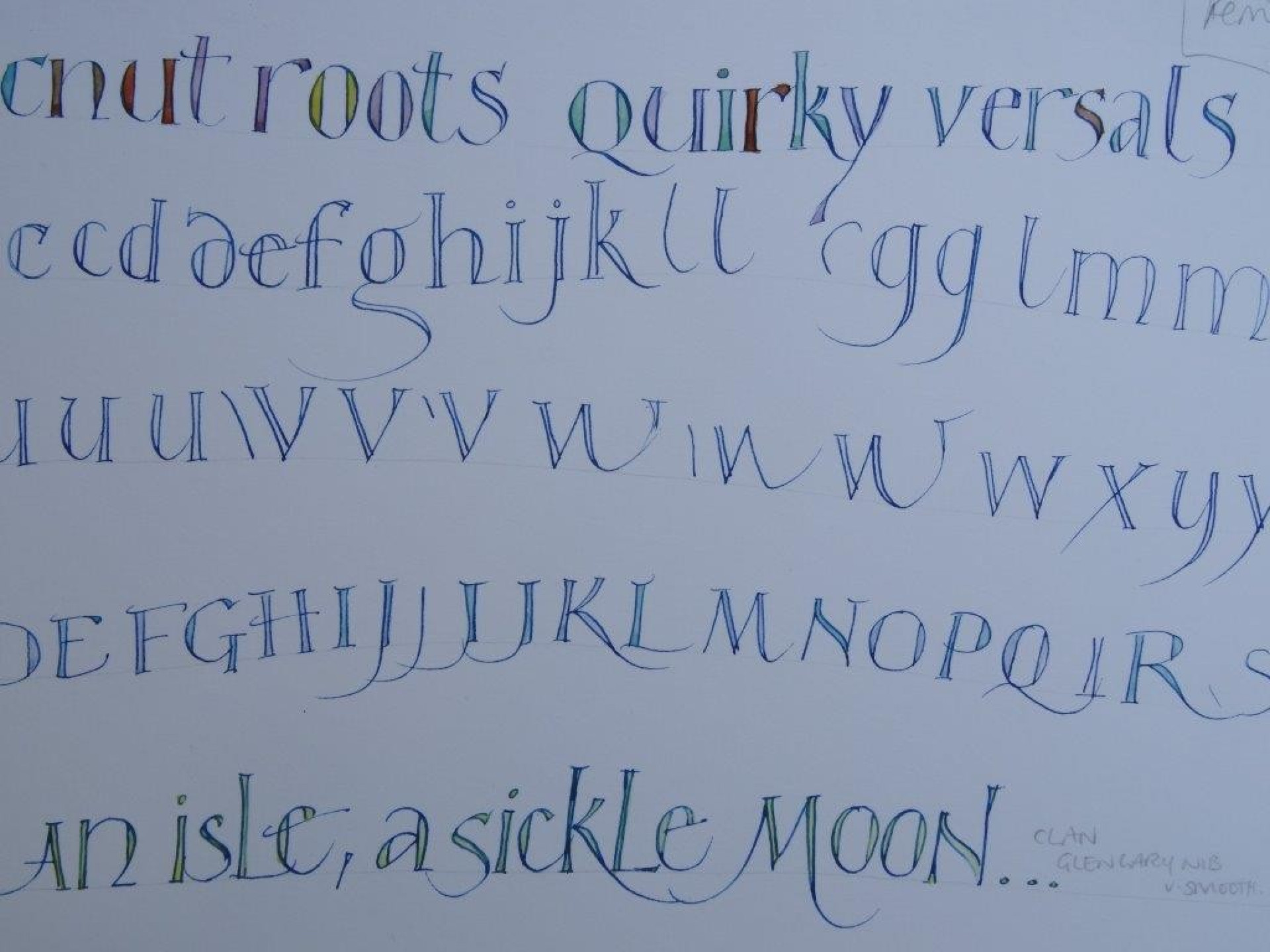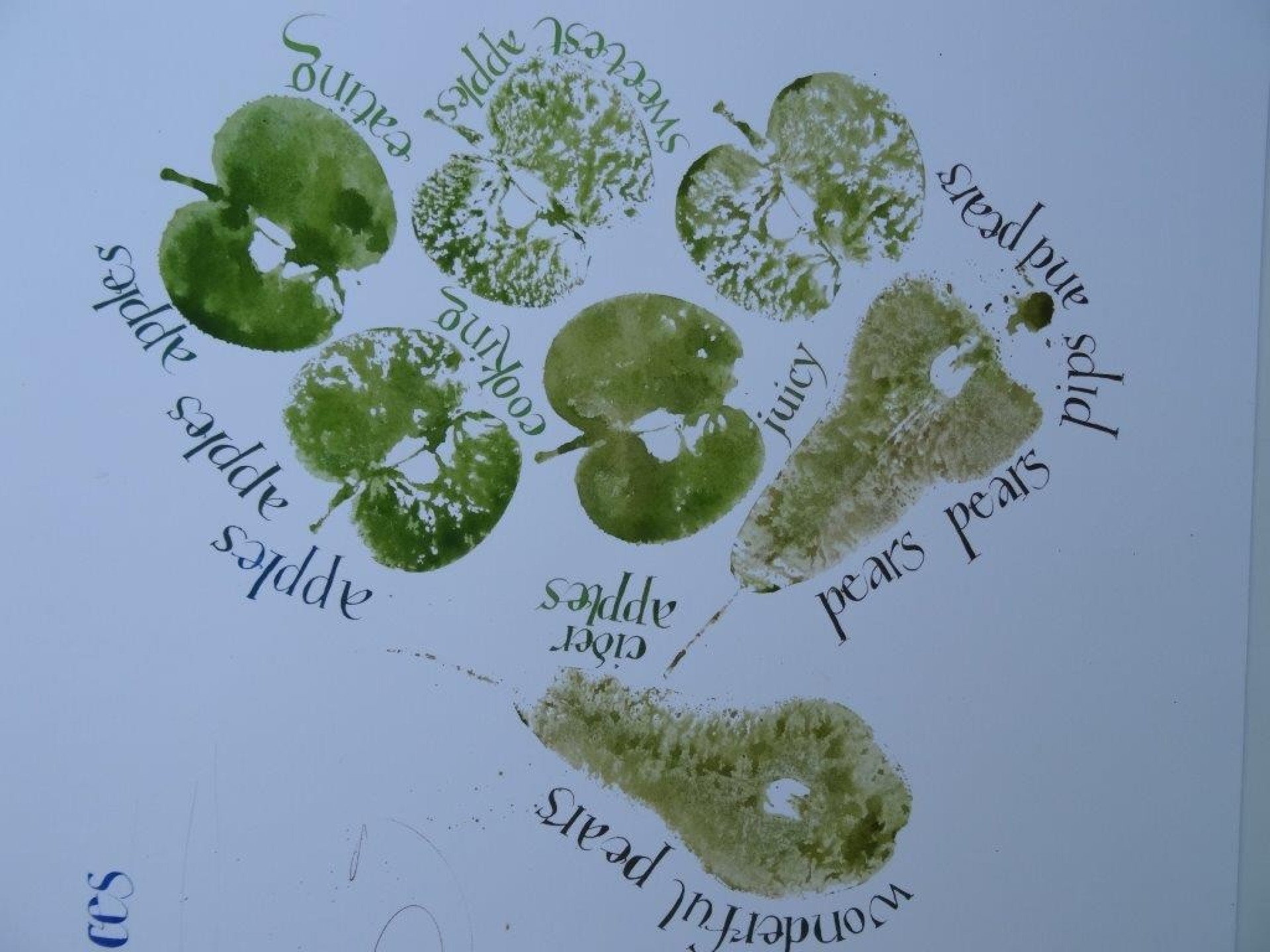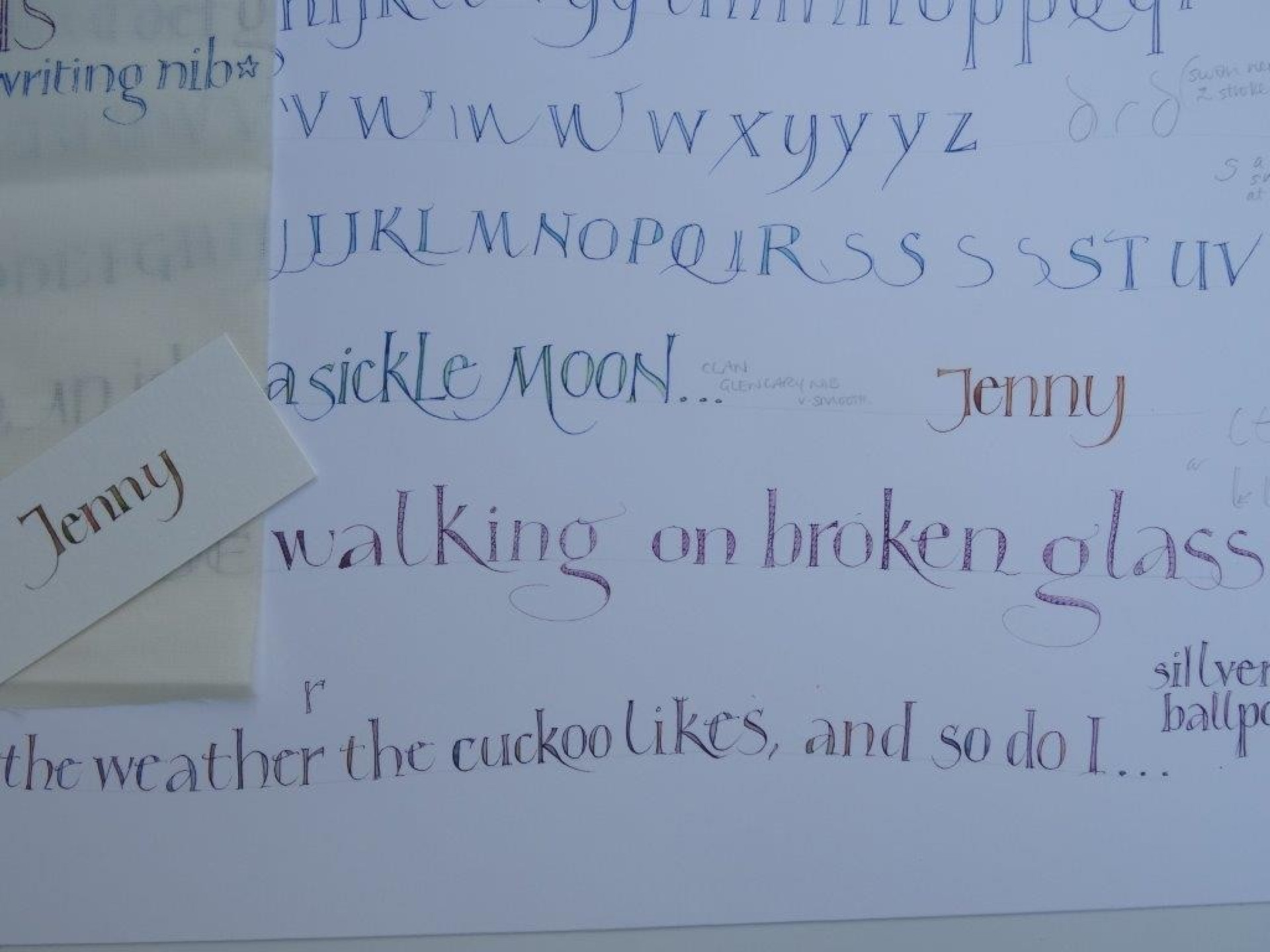
Quirky Versals with Nicola Dunn
Nicola Dunn’s Quirky Versals workshop made for a truly wonderful day - I was so glad to have been there. Nicola had brought some delicious examples of work with her and started by explaining how these letter shapes are inspired from the Cnut hand, with some subtly rounded strokes and a liveliness to them.
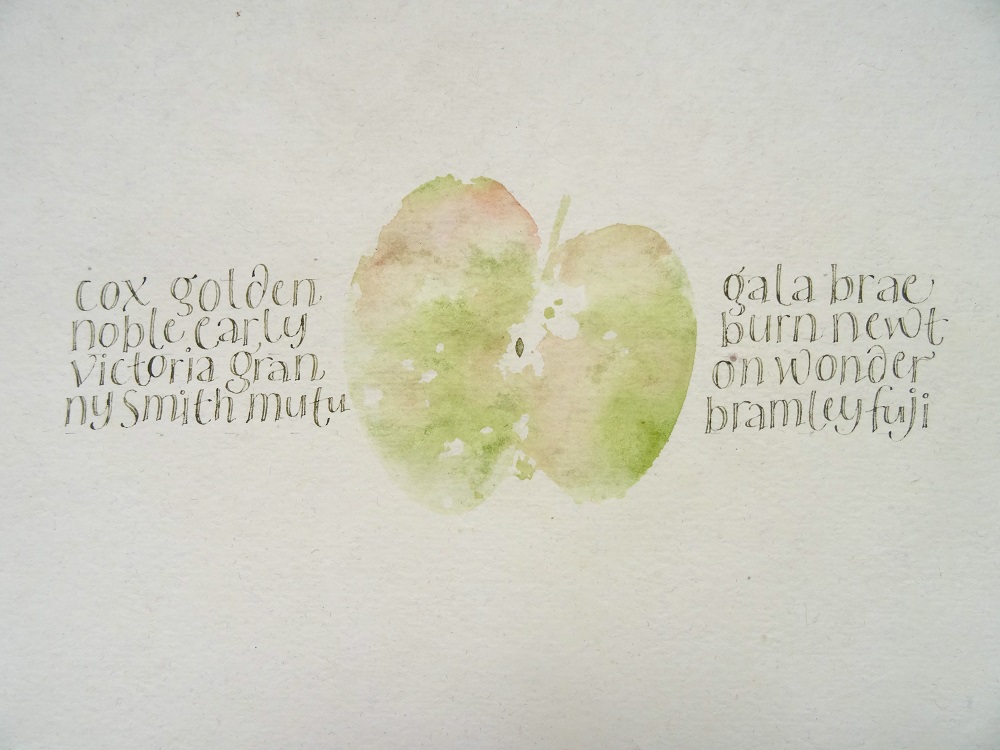
She had written out our names on place cards and in-filled the letters with soft colour, so we each had a treasure to take home with us at the end of the day.
Being written with a pointed nib meant they could be written to any size — one wasn’t constrained as one might be with an edged pen. Capital versals could also be playfully included into pieces of work with these miniscule versals – and the two could be mixed randomly very effectively.
Equipped with handouts we set about them with pointed nibs & gouache, pencils or permanent fine-liners. The letters are to be lively, written fairly quickly and freely, based around an elliptical ‘O’, and with a slight curve to the f, l and t. It was joyful as these fun dancing miniscule letter-forms started taking shape on our pages.
Having explored the alphabet it was time to try out a few words or quotes and, if wanted, to infill letters with a watery colour-wash. The colour-wash went a long way towards disguising any imperfections in our letter forms and was hugely pleasing!
Nicola demonstrated these letters written with watercolour pencils – brushing across them with a wet brush – to magical effect. There was also the opportunity to include ‘fruit-prints’ into our work – using apples and pears sliced in half and a fairly watery gouache – though of course all sorts of fruit or vegetables could be used.
In addition, there was the chance to write these letters onto fabric using a pointed brush – and Nicola talked about using fabric dyes that can be ironed in to make them permanent and colour-fast.
In the days since this workshop I’ve been addicted to writing envelopes to family and friends using this playful hand, and hope the postman has been enjoying them as much as I’ve enjoyed doing them!